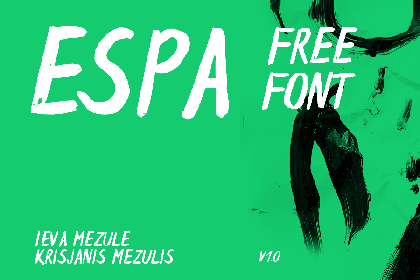
Introducing you to the absolutely beautiful free espa brush typeface. Free Design Resources has created this amazing and beautiful font. You can create a professional designs with this beautiful font.